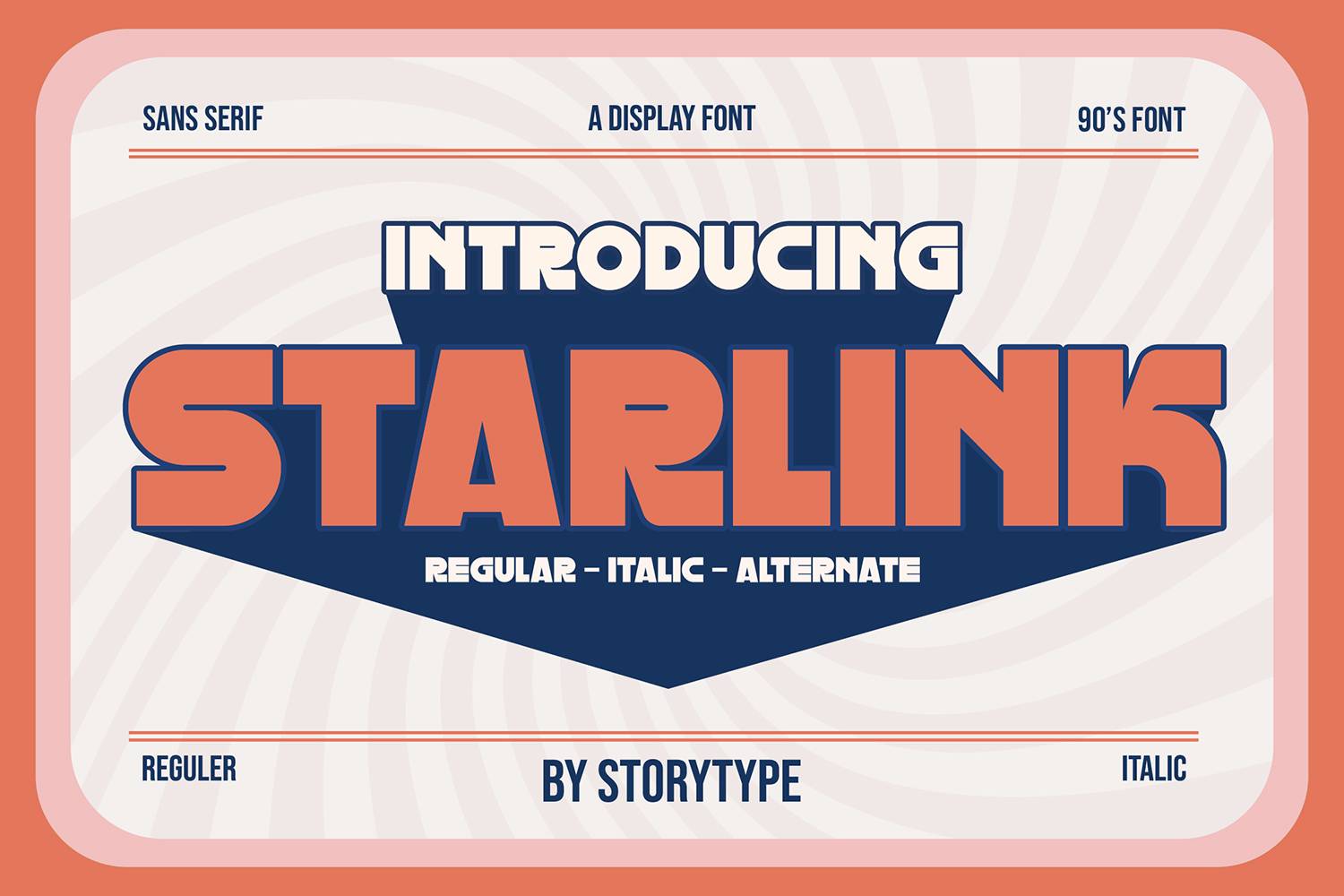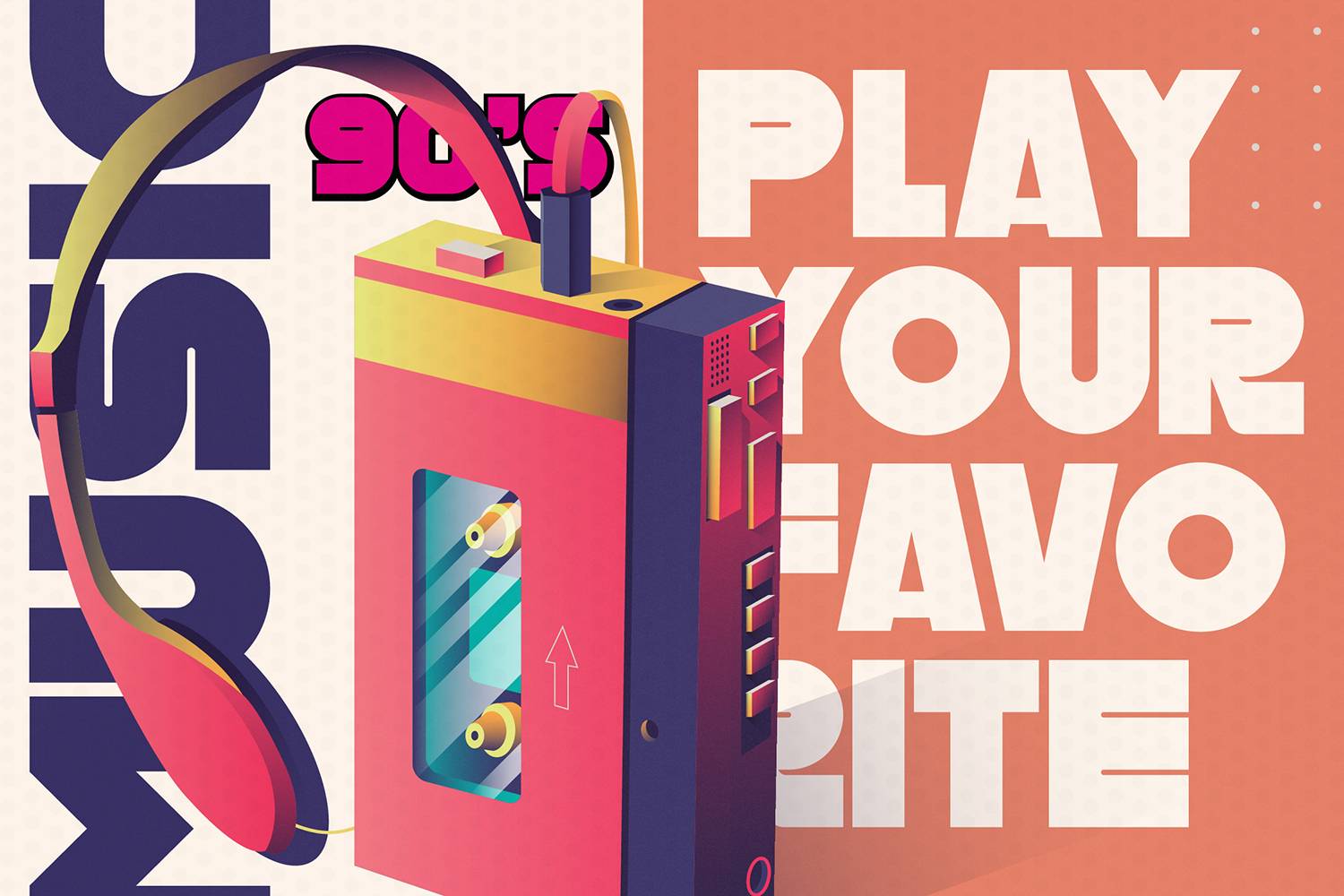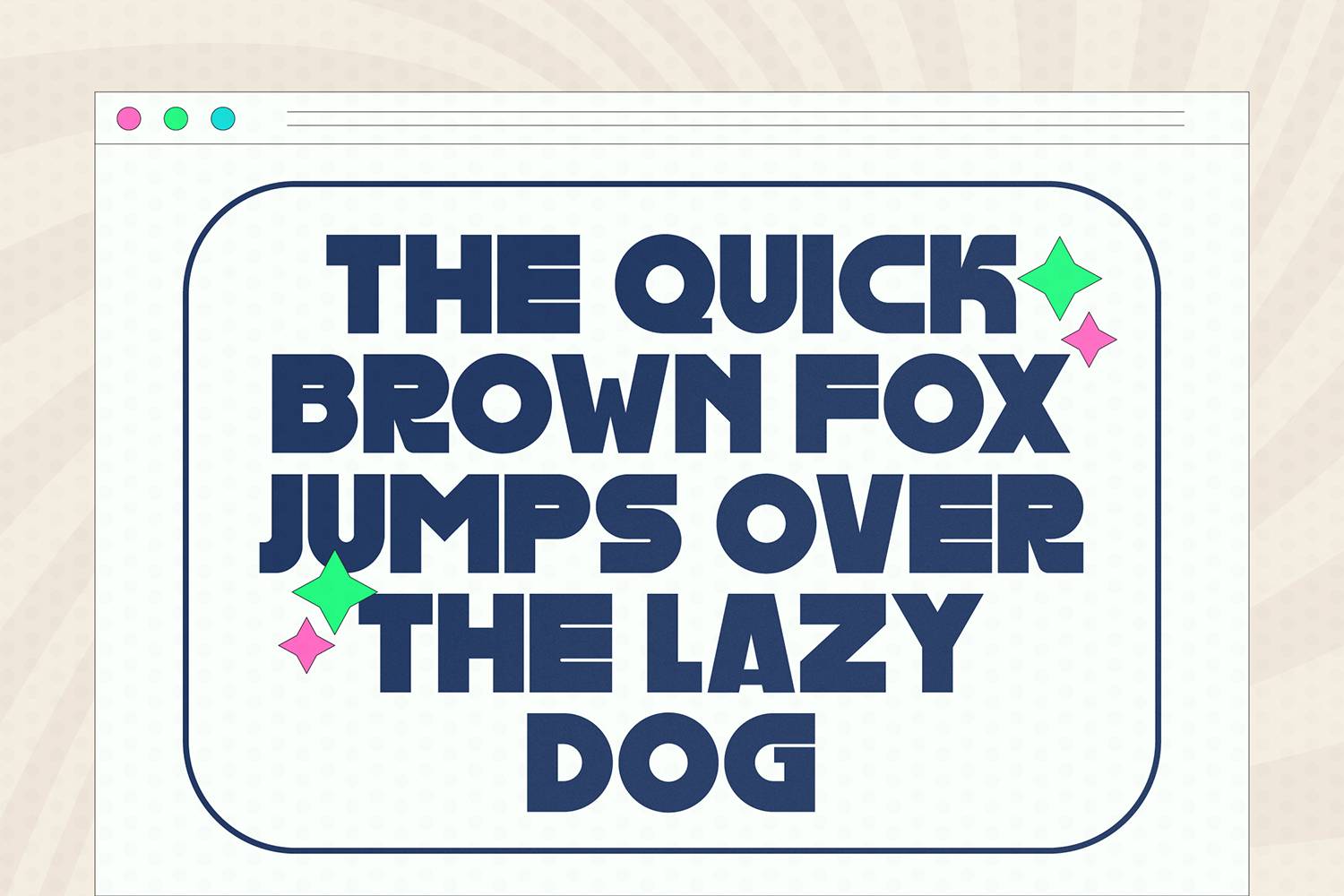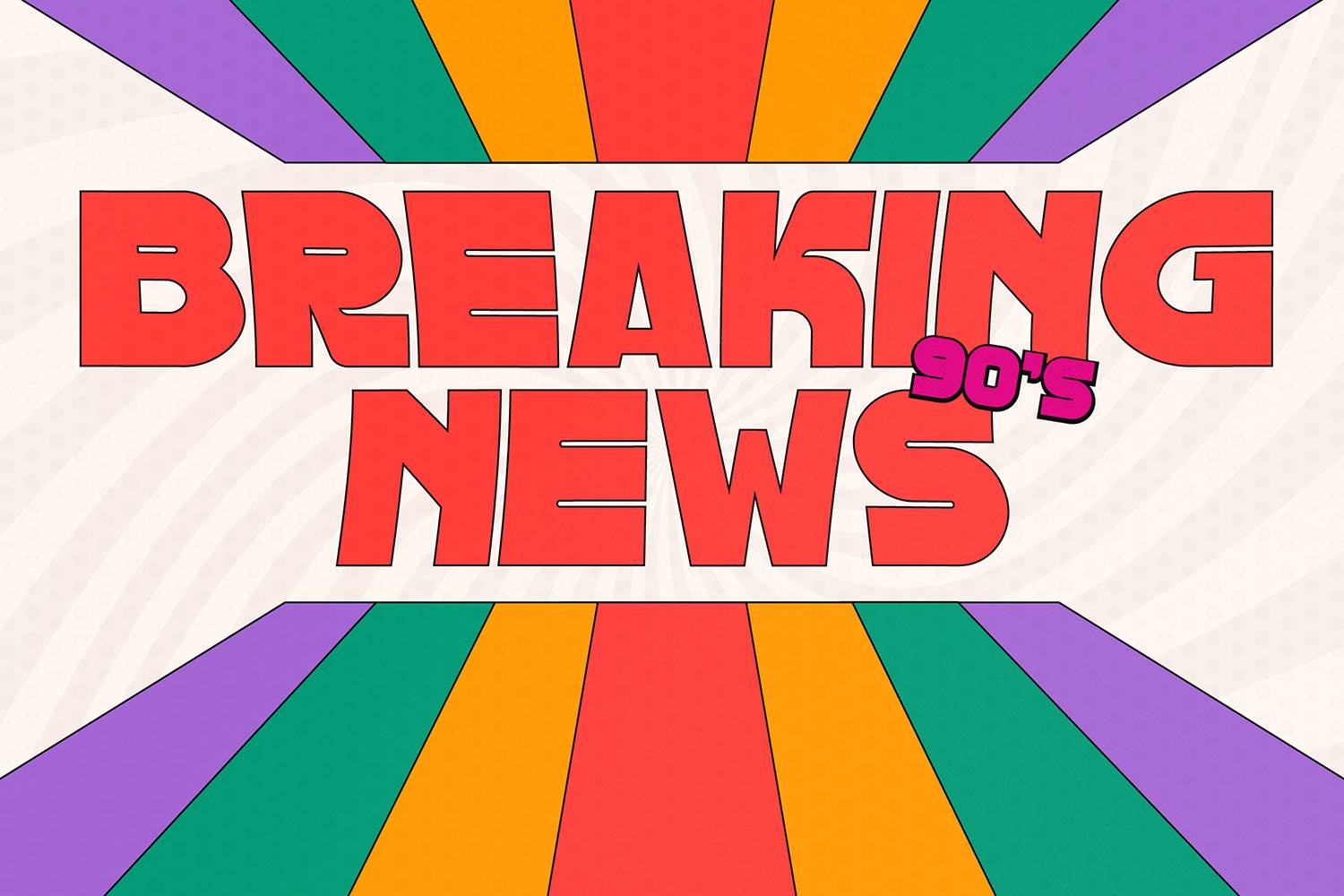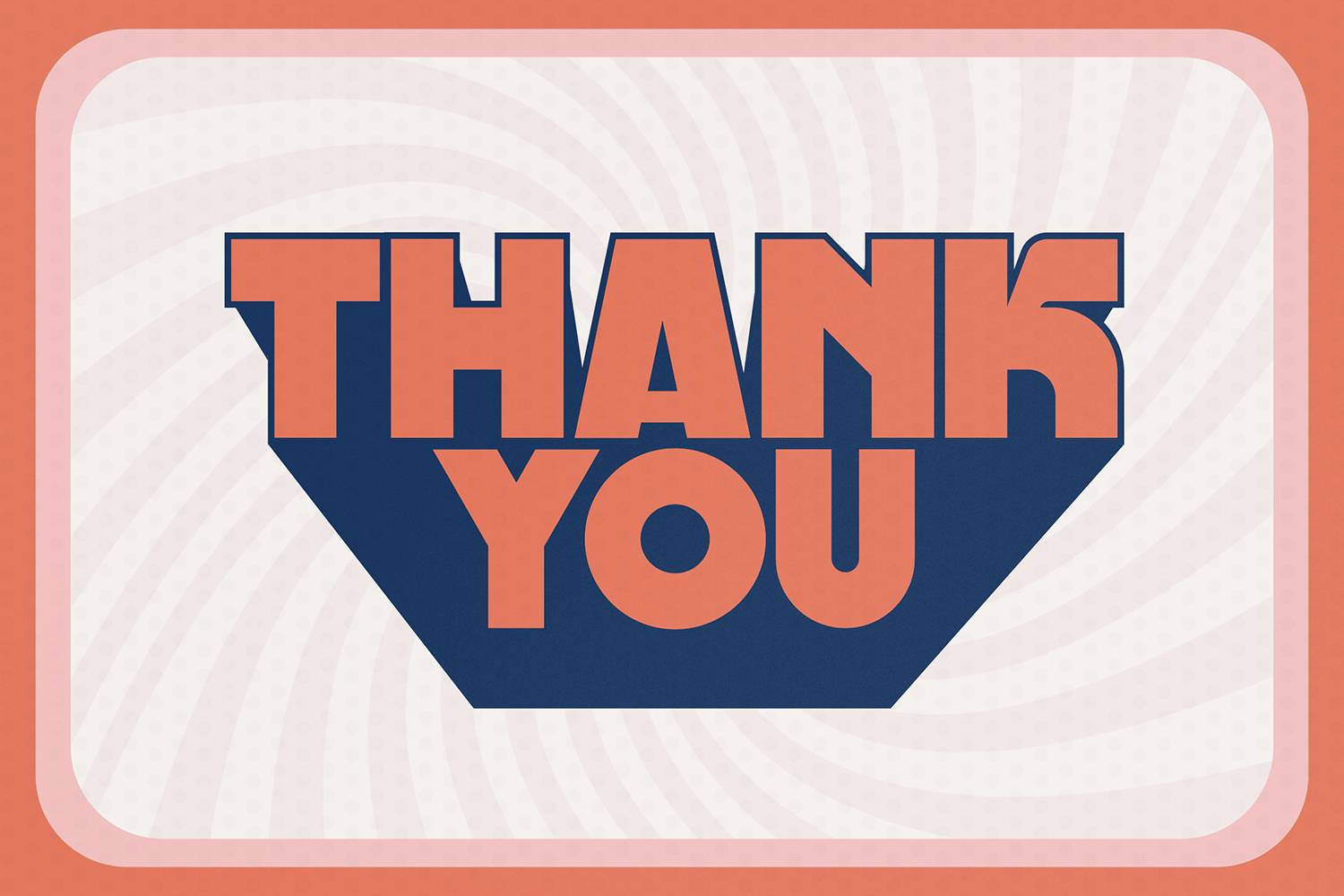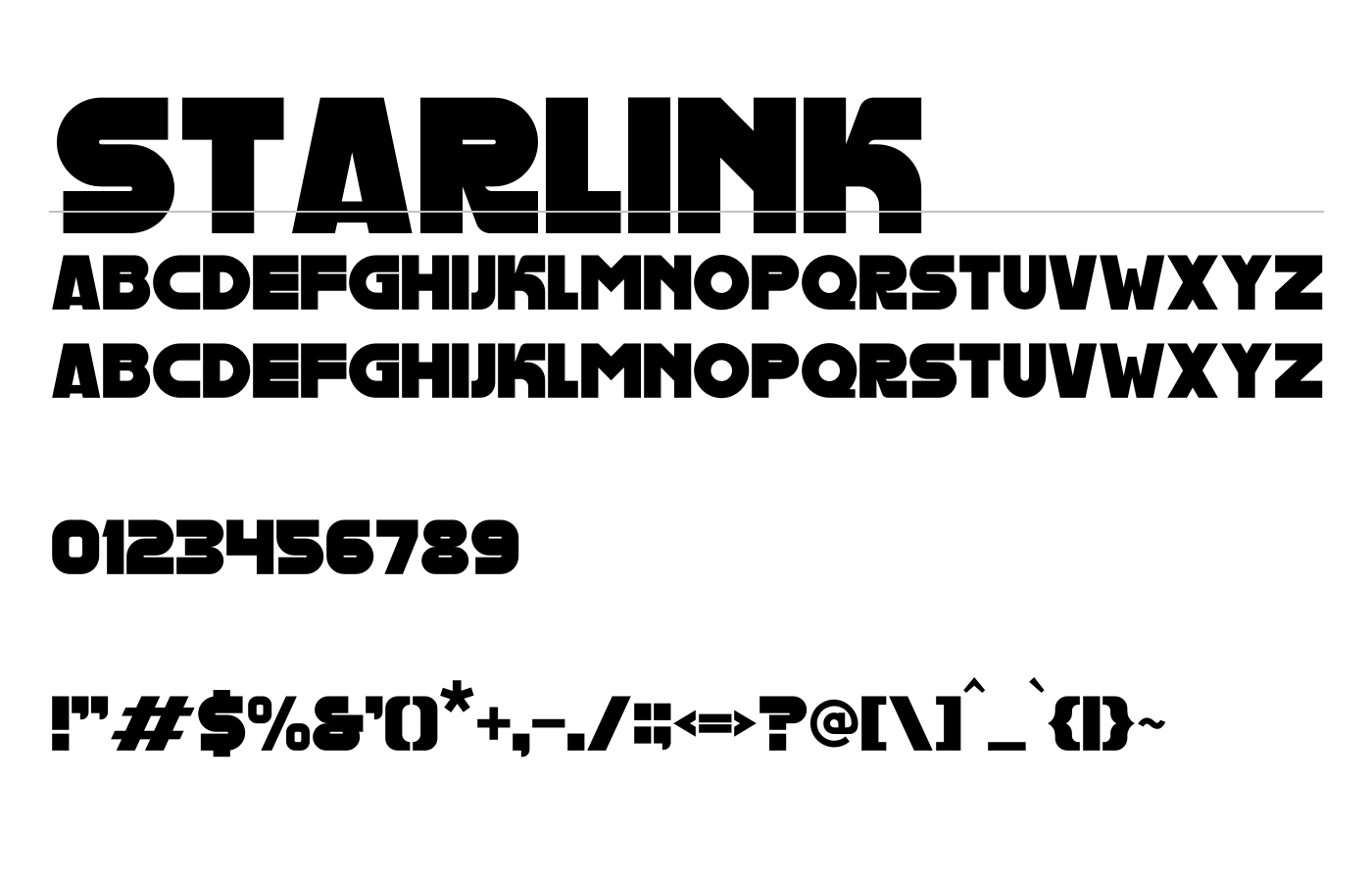
Starlink is a bold, geometric sans serif font with a strong, blocky appearance that conveys a sense of modernity and strength. Its wide, uniform strokes and distinctive angular cuts give it a futuristic and industrial feel, making it ideal for impactful headlines, logos, and branding in tech or gaming industries. This font’s striking presence works best where attention-grabbing and bold visual impression are needed.
Starlink Font
About Starlink Font
| Font family | Starlink Font |